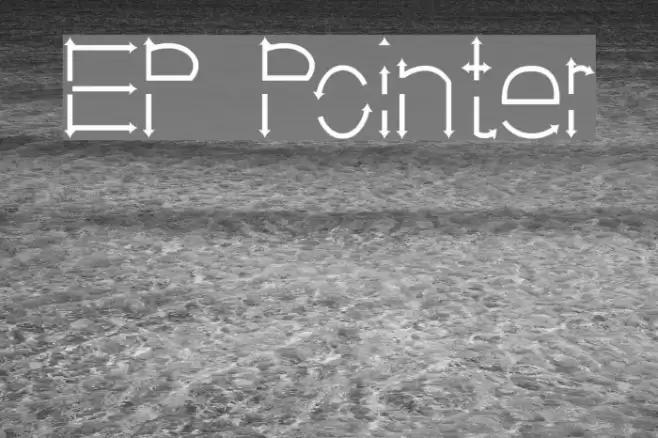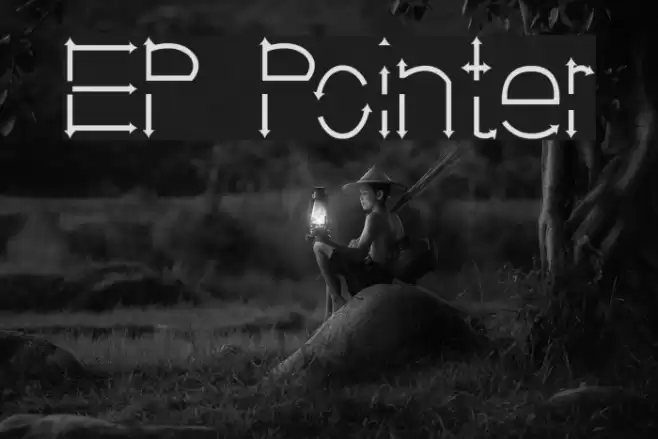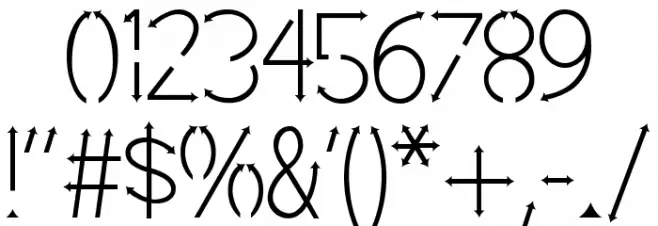
EP Pointer Font
EP Pointer Description
This font features a unique and playful design where each character is constructed with arrow-like elements pointing in various directions. The uppercase and lowercase letters maintain a consistent style, with sharp angles and clean lines that give a sense of movement and direction. The numerals and special characters follow the same design principle, ensuring uniformity across the entire set. This font stands out with its decorative and dynamic appearance, making it ideal for creative and eye-catching designs. The overall look is modern and innovative, appealing to those seeking a distinctive and engaging typeface.
A dynamic, arrow-themed font with a modern and playful design from Uncategorized fonts.
- Proposed Projects: Ideal for creative projects such as posters, logos, and branding materials that require a unique and engaging typeface.
- Use Case: Logos, Posters, Creative Designs